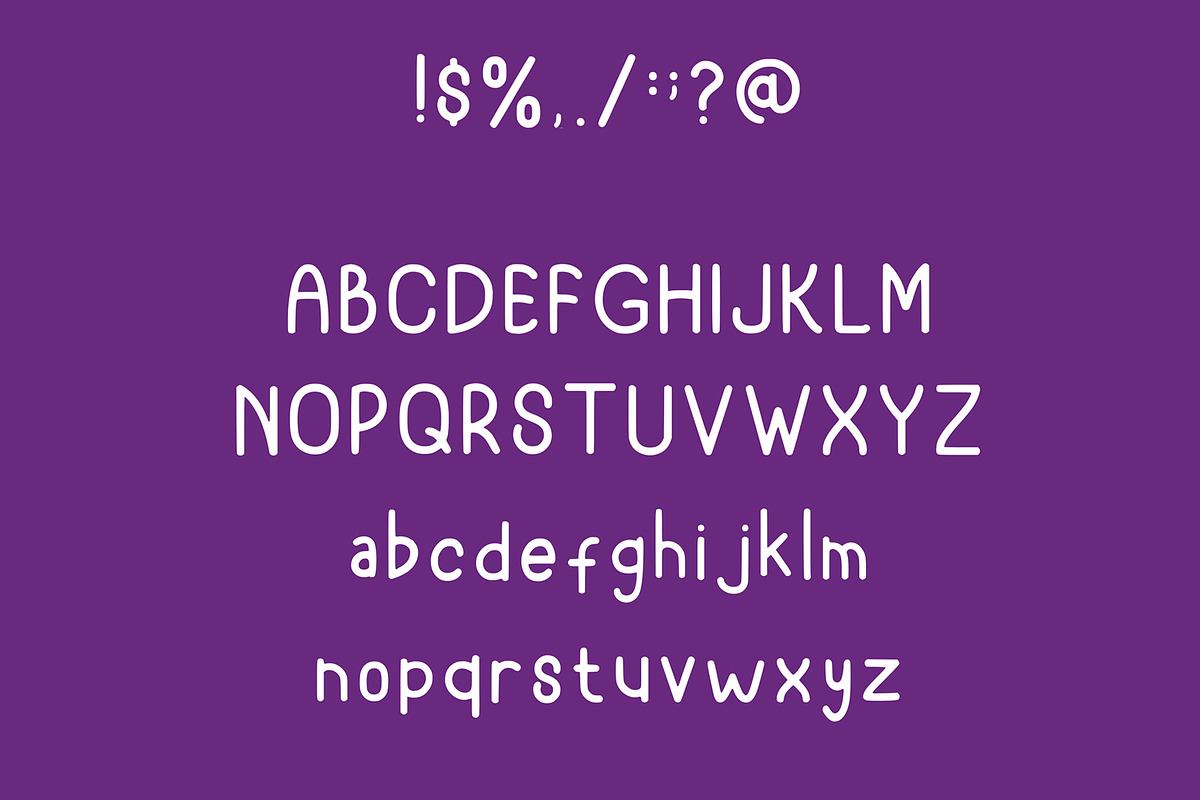
Vennya fonts | San Serif font Free Download
Vennya Fonts | Sans Serif Font Free Download
Please note, you must purchase this font for commercial use. However, you can easily download Vennya Fonts | Sans Serif Font Free Download for personal use and testing purposes. Vennya Fonts | Sans Serif Font is a clean, modern sans-serif typeface designed for versatility and readability. Perfect for a variety of design projects, including branding, editorial layouts, websites, and social media graphics, this font offers a sleek, contemporary feel that works well across both print and digital media. With its balanced letterforms and professional aesthetic, Vennya Fonts | Sans Serif Font Free Download is ideal for creating polished, minimalist designs. Download Vennya Fonts | Sans Serif Font Free Download today and explore its potential before opting for a commercial license.